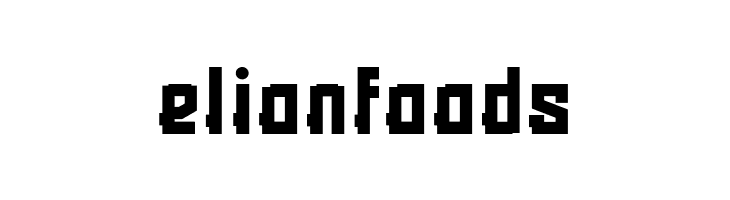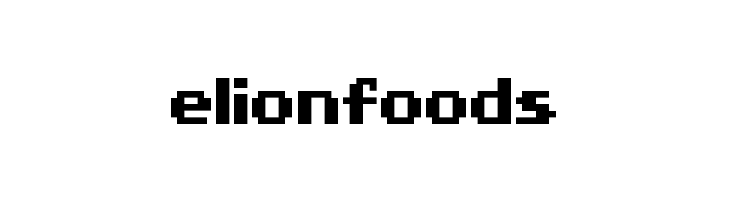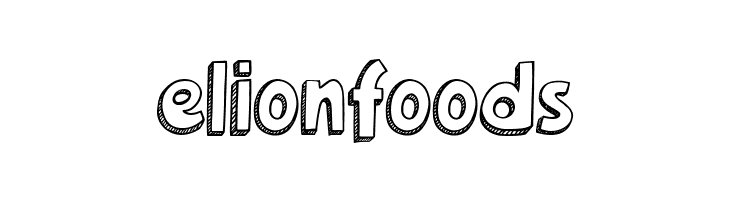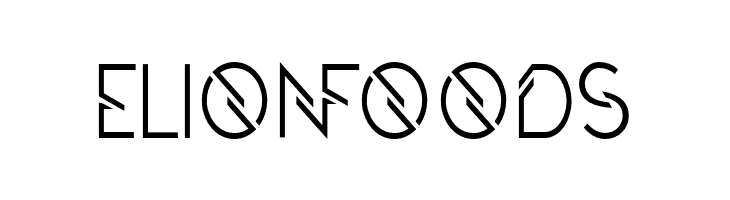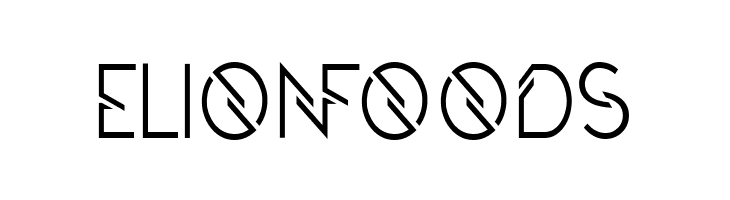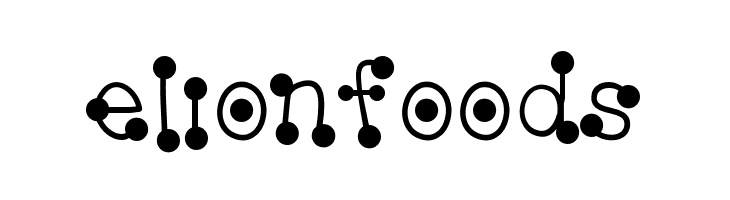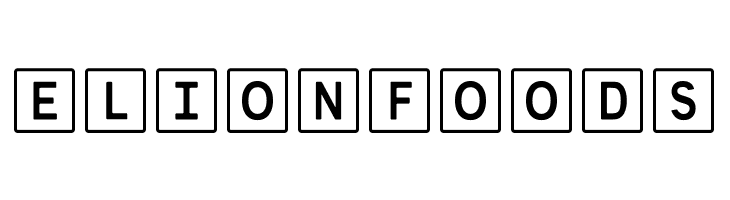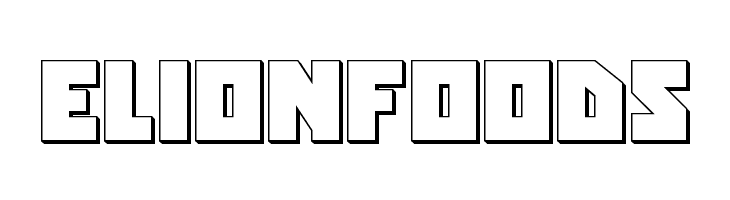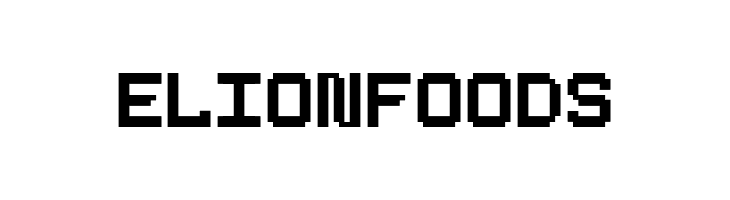
A bold, geometric font with a pixelated, retro video game style.
A pixelated, retro-style font inspired by classic video games.
A playful, hand-drawn font with bold outlines and sketch-like texture.
A modern, geometric font with sharp angles and clean lines.
A playful, dot-connected font with a bold and whimsical design.
Bold, tile-enclosed sans-serif font with a game-like aesthetic.
A bold, 3D geometric font with a retro video game aesthetic.
A pixelated, retro-style font inspired by early digital and arcade games.